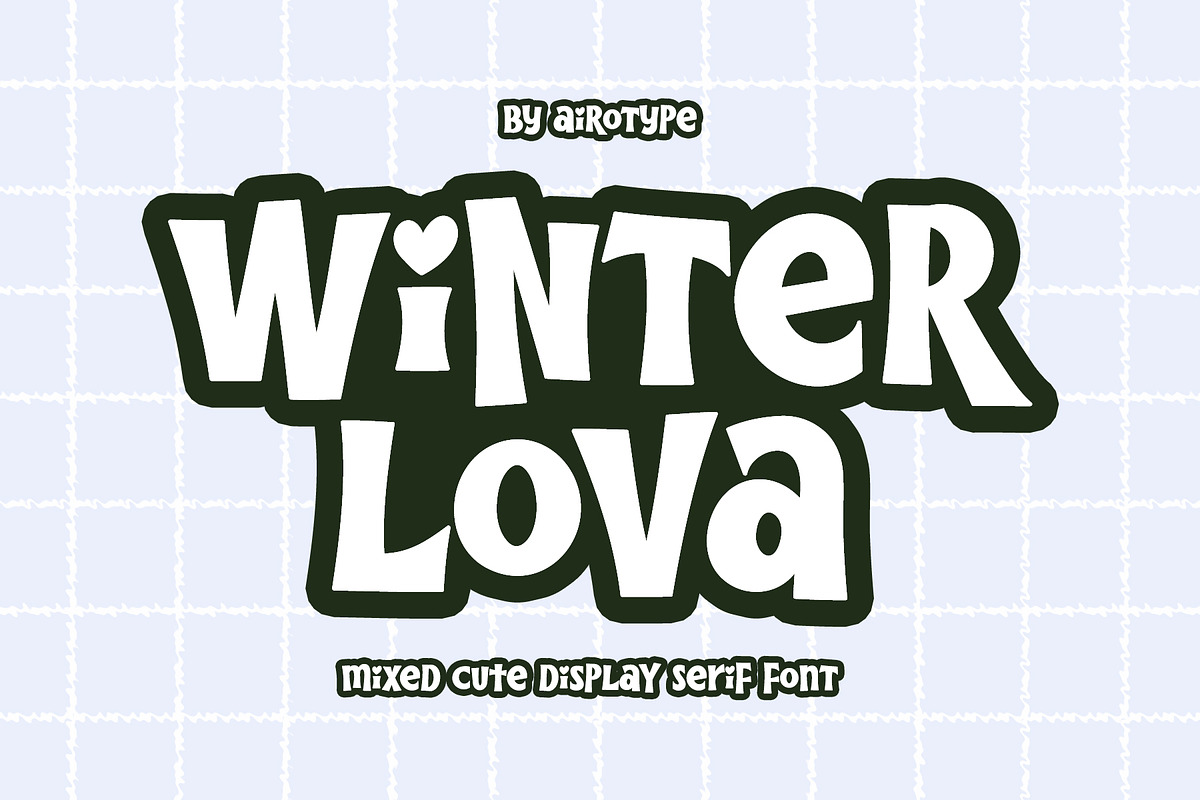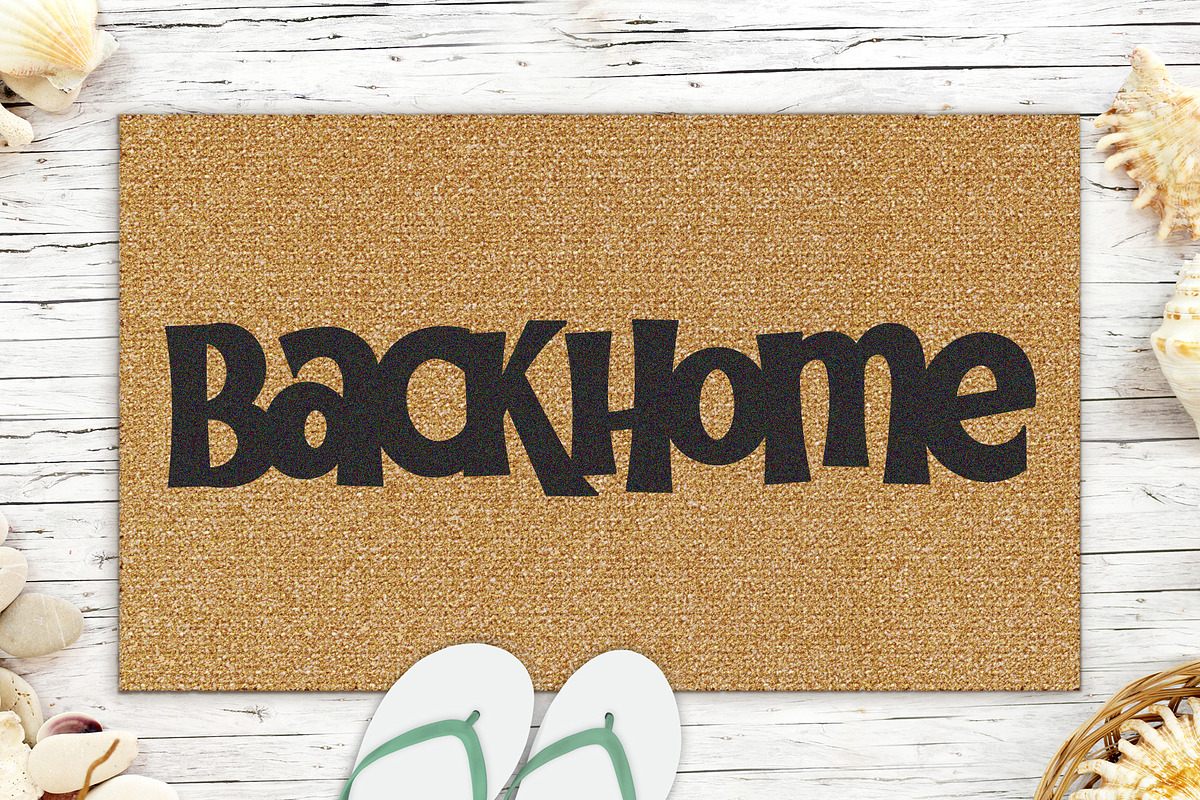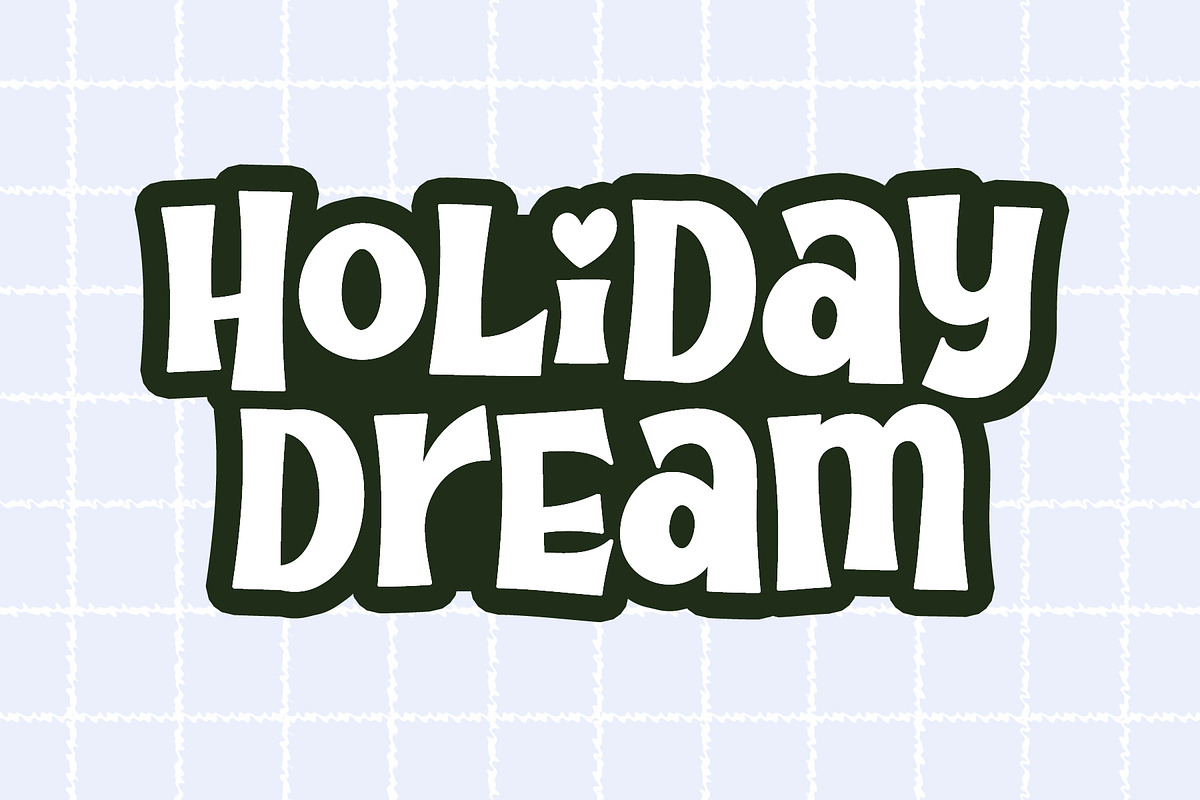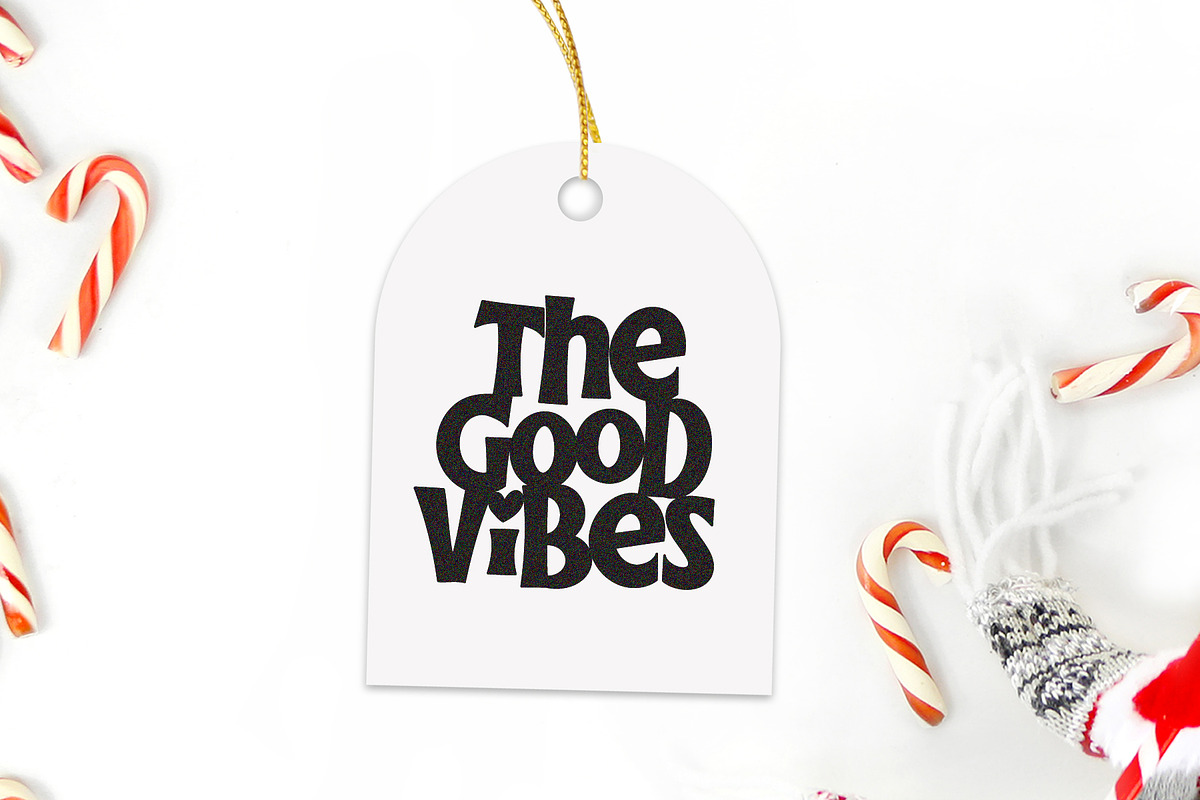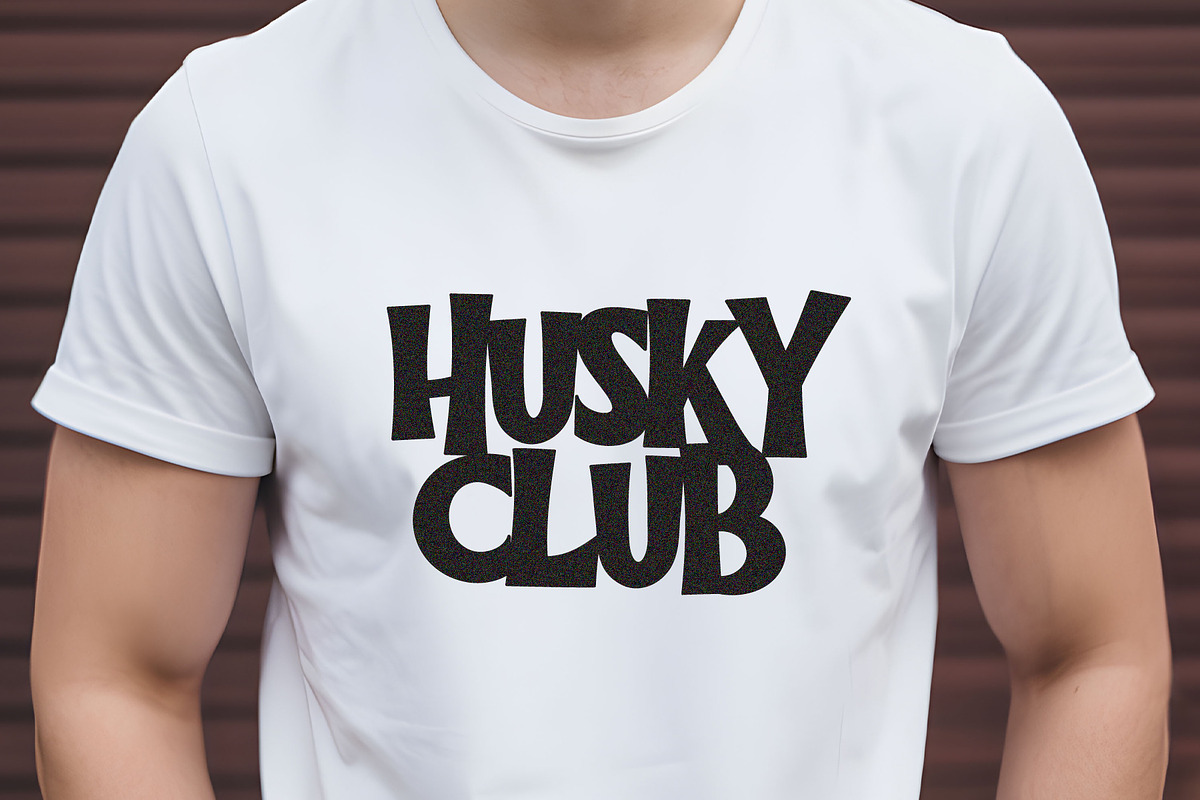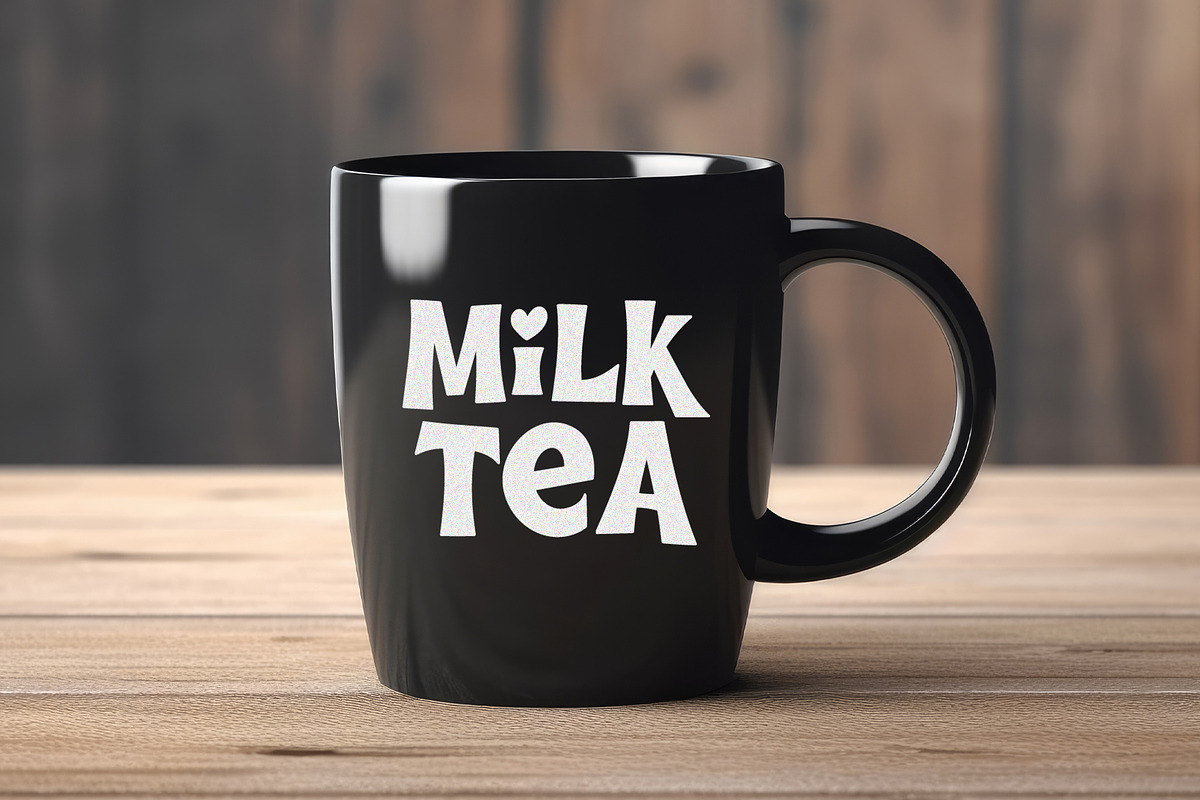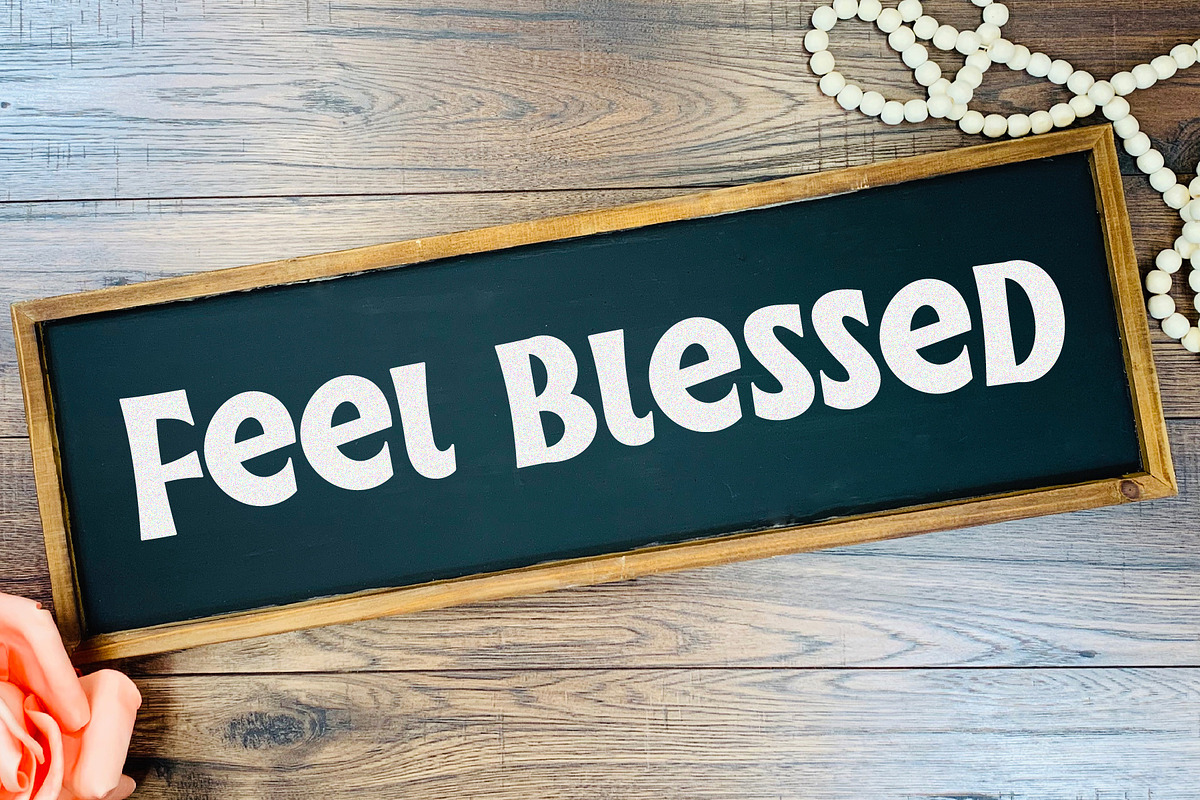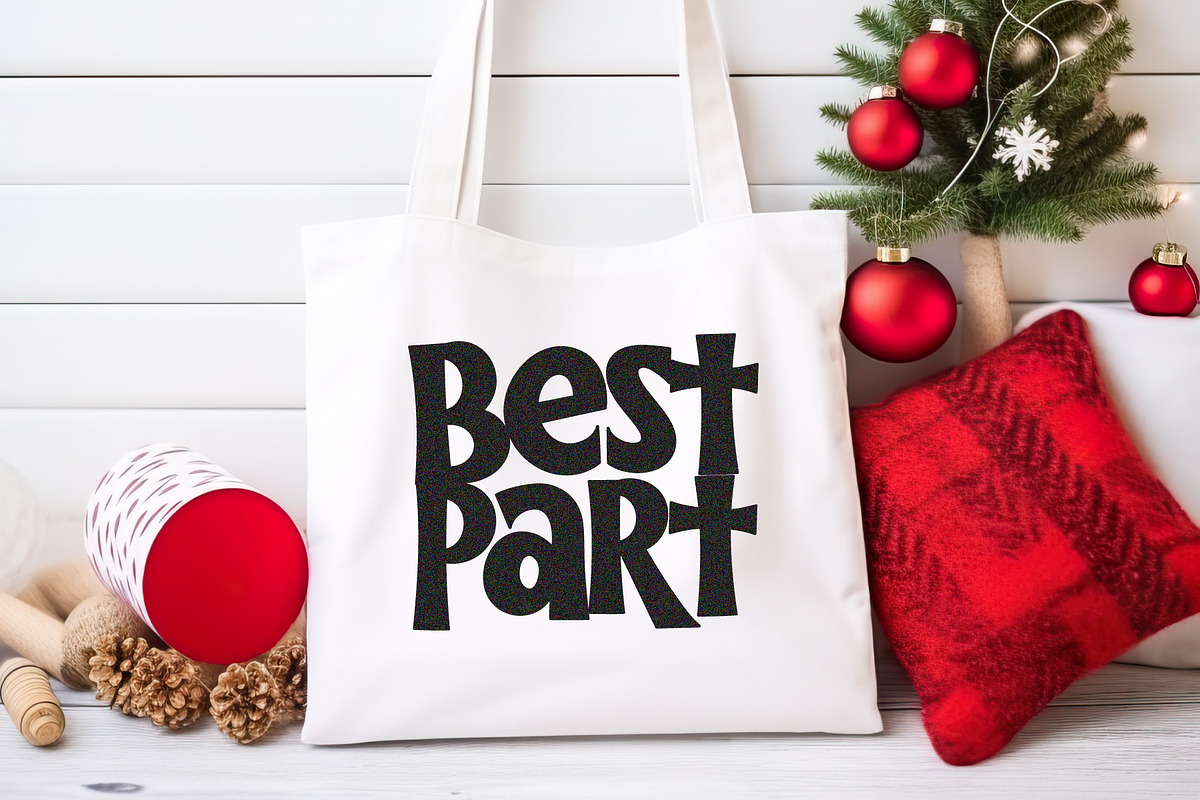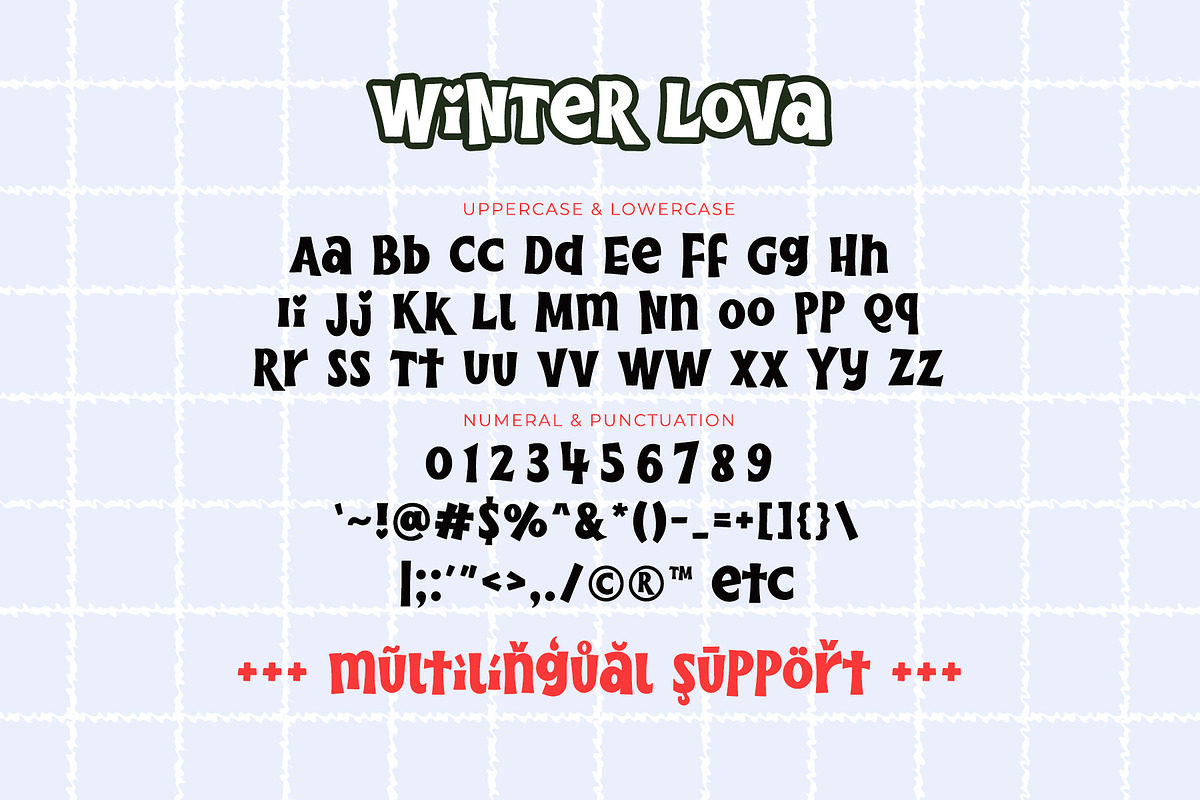
Winter Lova - Mixed Cute Font
Winter Lova is cute display serif font with bouncy and fun vibes. This font is charming adorable to captivate your feeling.
Uppercase and lowercase can be combined to give more playful touch into the design work.
Winter Lova is lovely font for wide ranges of design with cute theme, such as t-shirt, crafting, sticker, Christmas, holiday, winter, quotes, tumbler, sublimation, and many more.
- Most Multilingual Accent